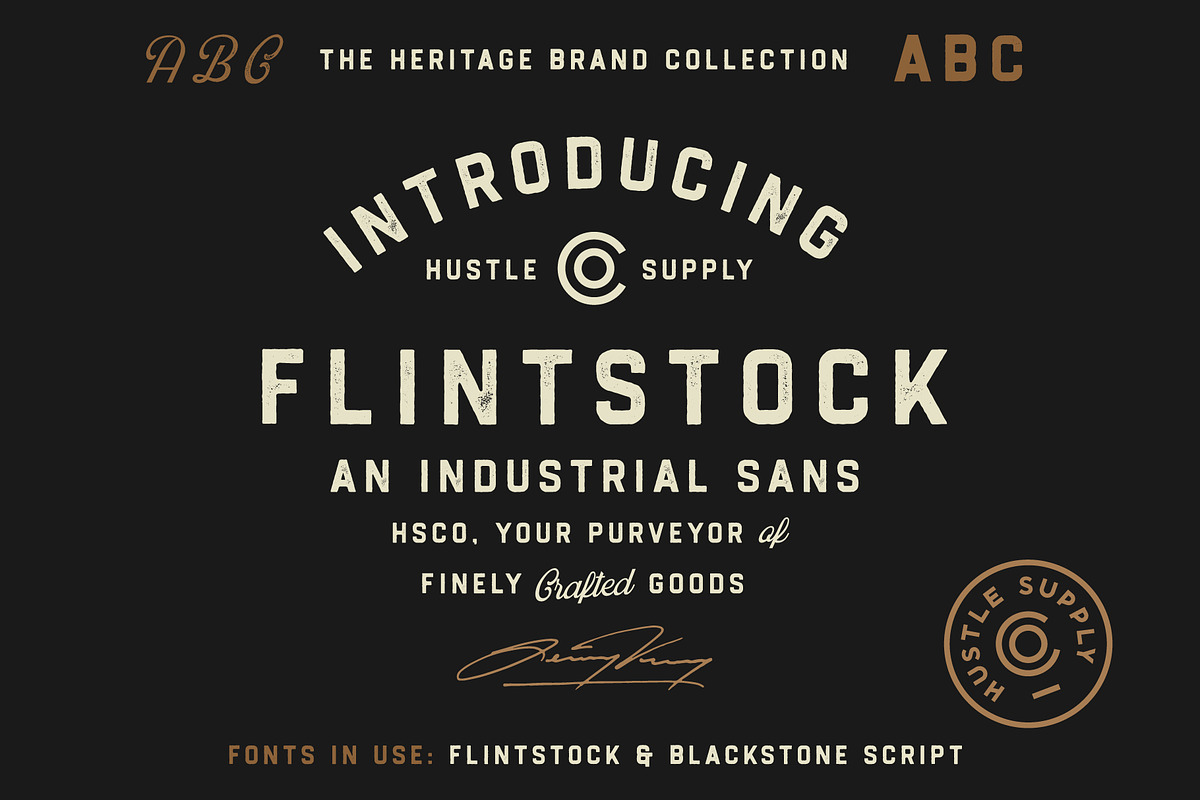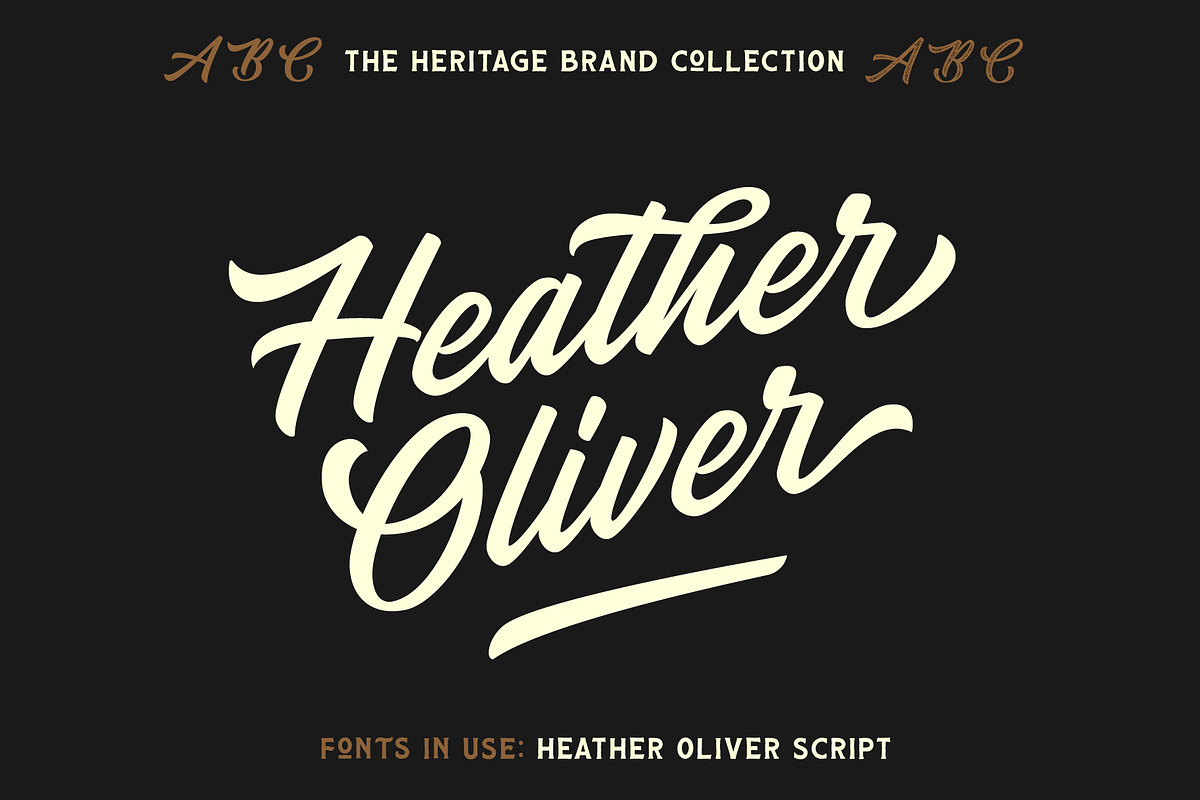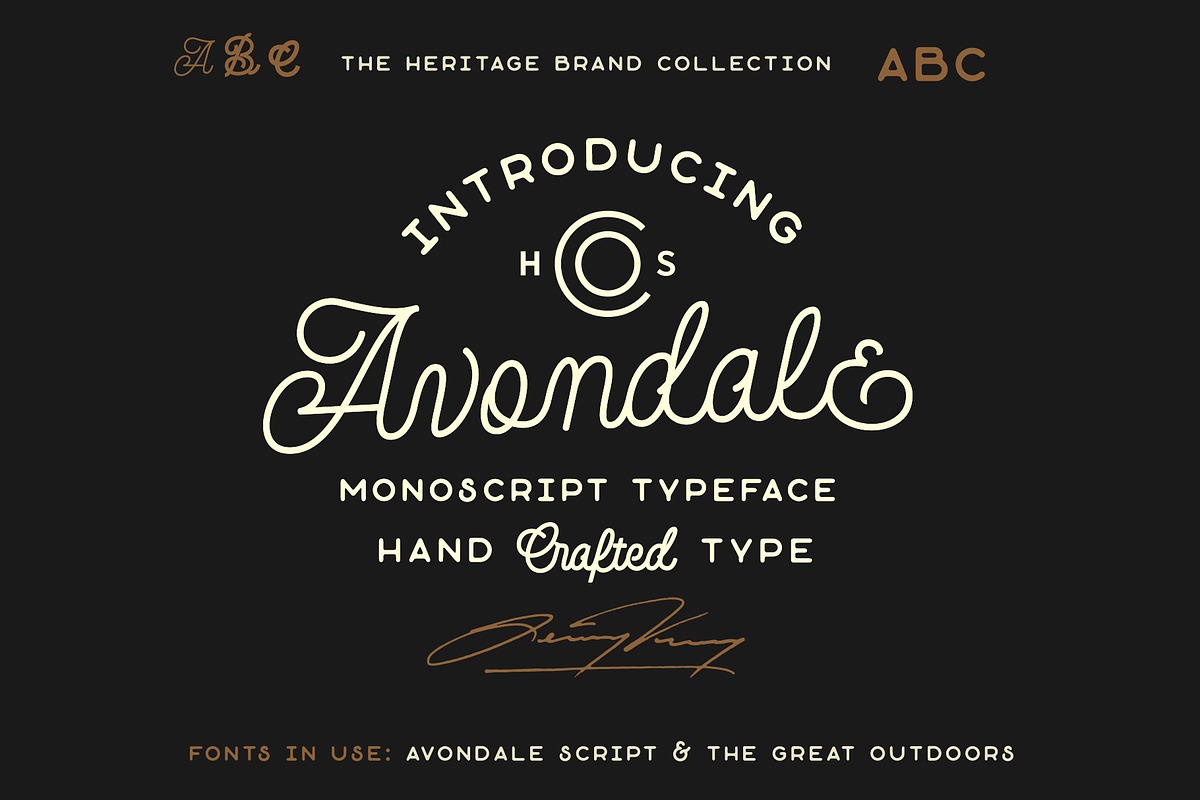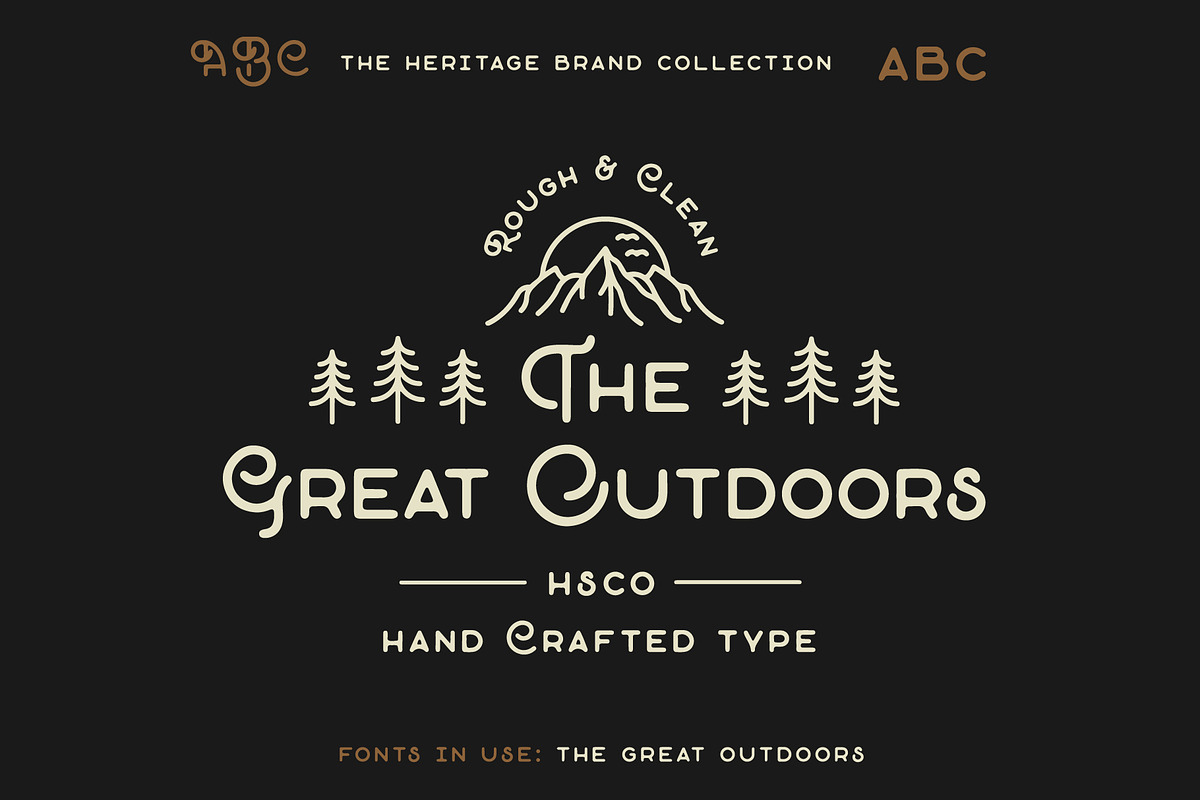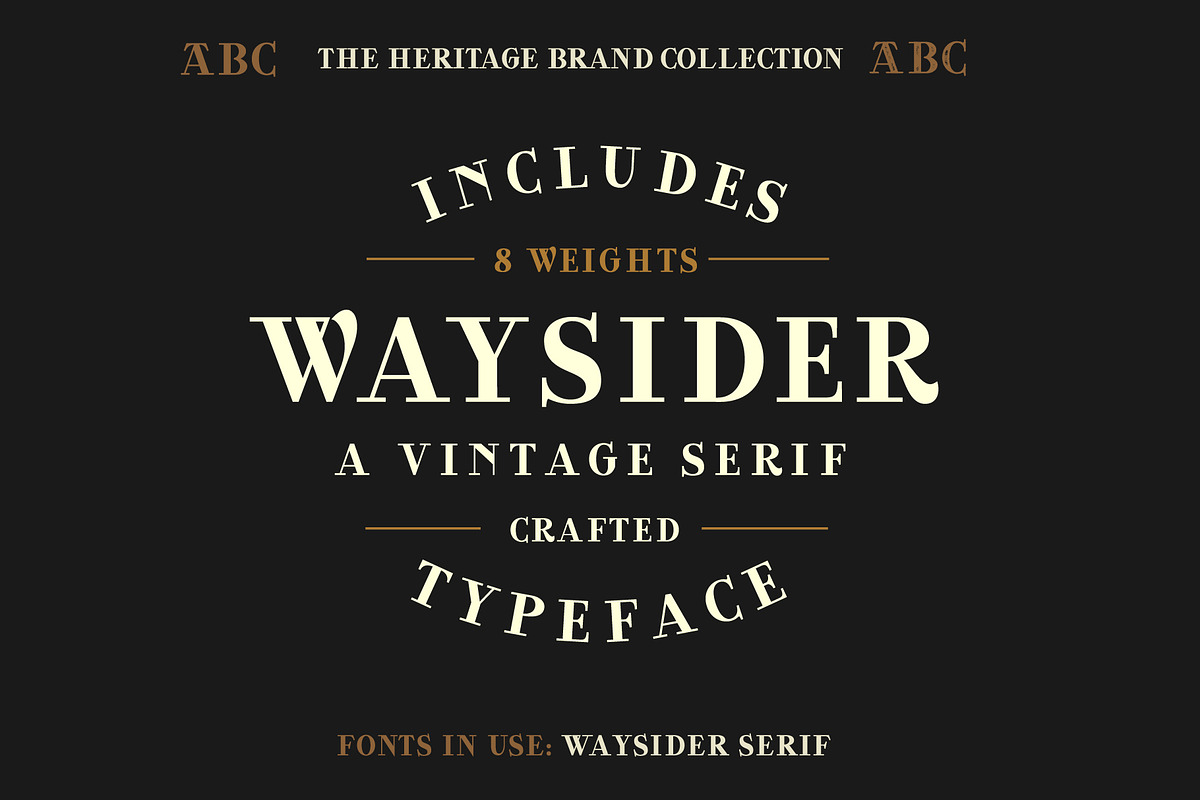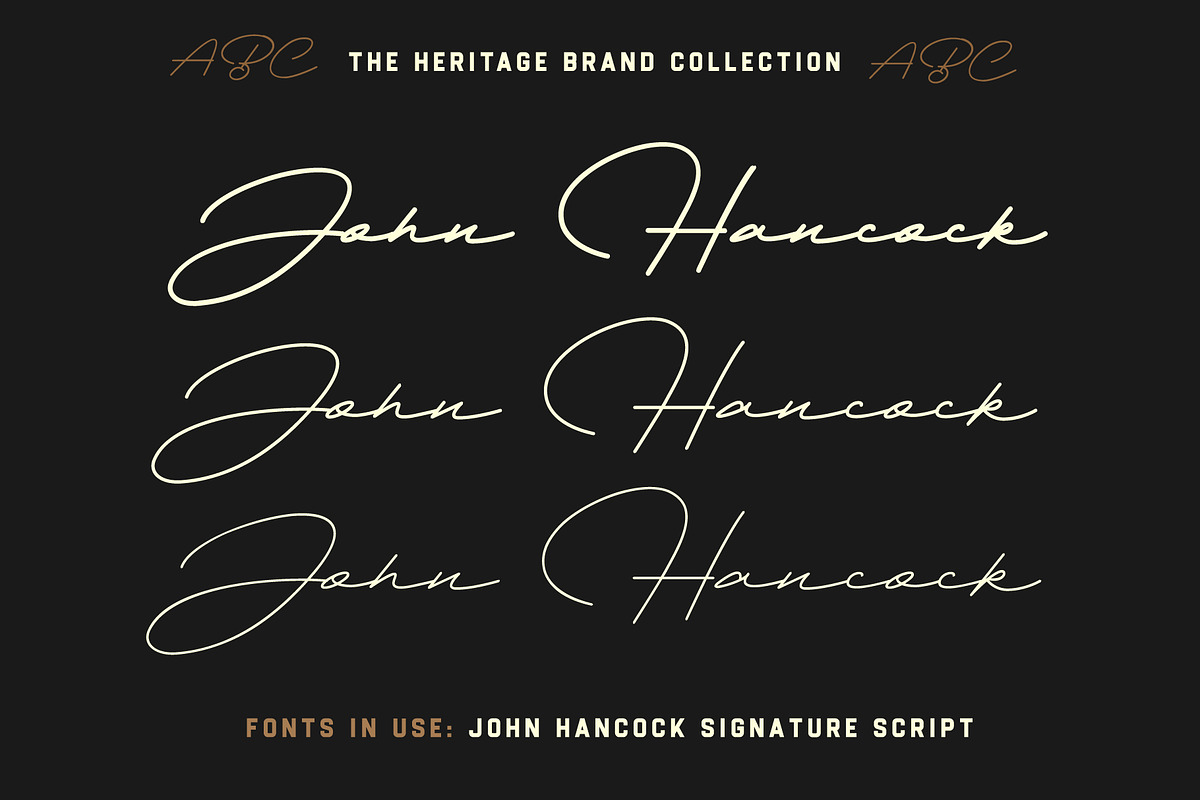
The Heritage Brand Collection
Pairing typefaces can be time consuming & costly. With the Heritage Brand Collection you don't have to worry about time or money. You have everything you need in this incredible collection.
Wow your clients with this versatile selection of incredible typefaces that allow for you to effortlessly create typographic projects with class.
With 25 Editable Type Templates at your disposal, your project is just minutes away from completion.
Type Templates are incredibly versatile. Creating Logos & Labels is just the beginning. Many of my customers have used my Type Templates to create anything from:
- Flyers & Posters
- Content for Instagram
- Prints & Apparel Design
- Merchandise
- Advertising Creative
- Branding / Logo Design
- Use in Video for Titles
- Packaging
- Book Cover Designs
- Etsy, Society6, Etc
- Even Product Covers On Creative Market!
- Fonts pair superbly together